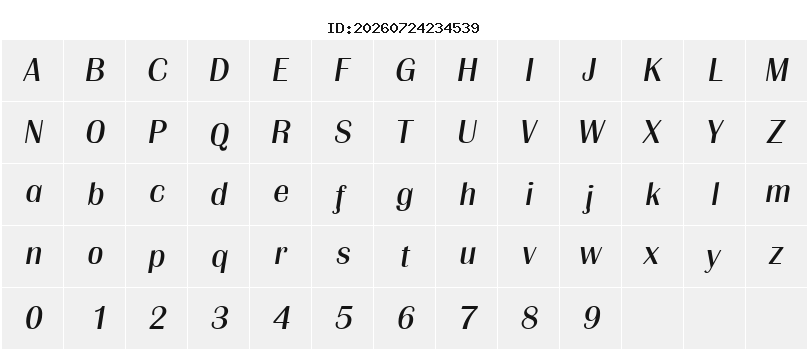
Grenoble SF Preview
• Font Name: Grenoble SF
• Full Font Name: Grenoble SF Italic
About Grenoble SF.ttf
Grenoble SF.ttf is a modern, elegant sans-serif font designed for ultimate readability and visual harmony. Perfect for branding, headlines, web design, and print materials.